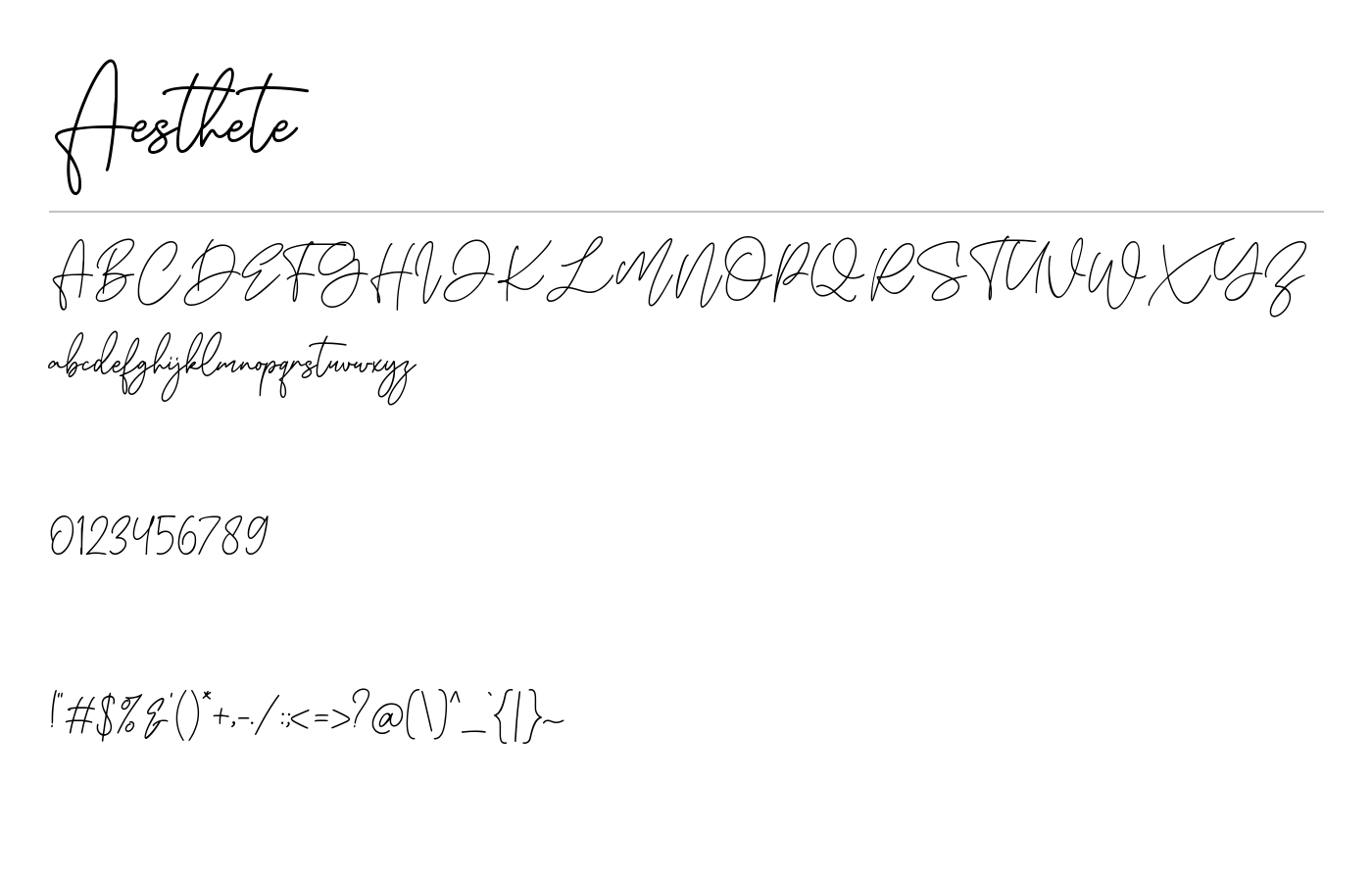
Aesthete is a delicate and elegant script font characterized by its thin, flowing strokes and graceful curves that mimic natural handwriting. It conveys a sophisticated and personal feel, making it ideal for branding, invitations, and fashion-related designs where a refined, artistic touch is desired. With its airy spacing and stylish letterforms, Aesthete works beautifully in headlines and decorative text, adding a sense of luxury and creativity.
Aesthete Font
About Aesthete Font
| Font family | Aesthete Font |
| Designer | Muhammad Farhan Sholeh Ramadhika |
| Trademark | Abas Creative |